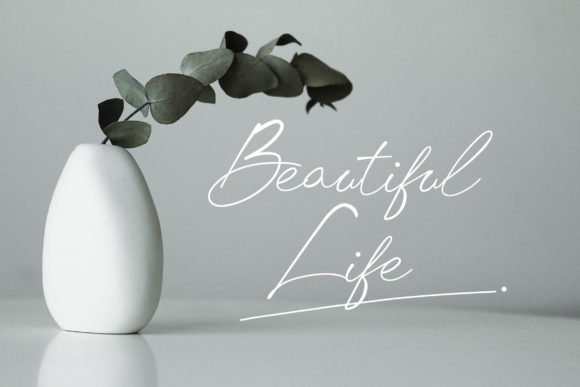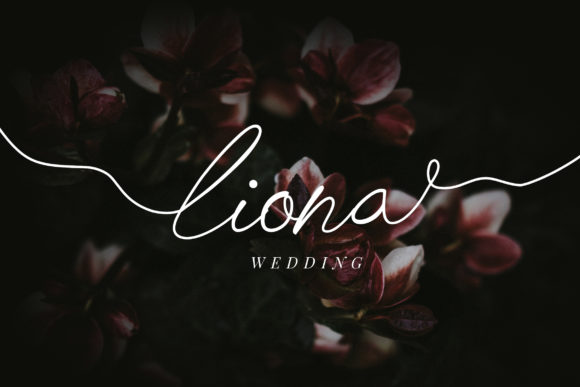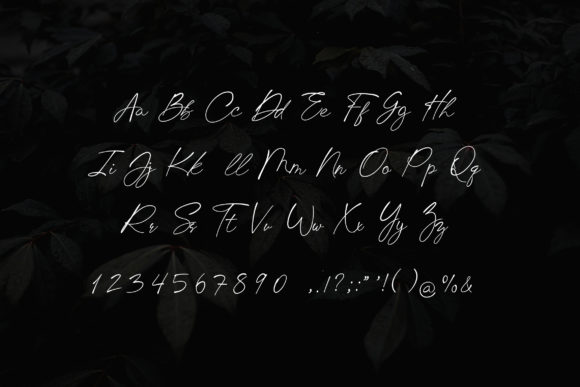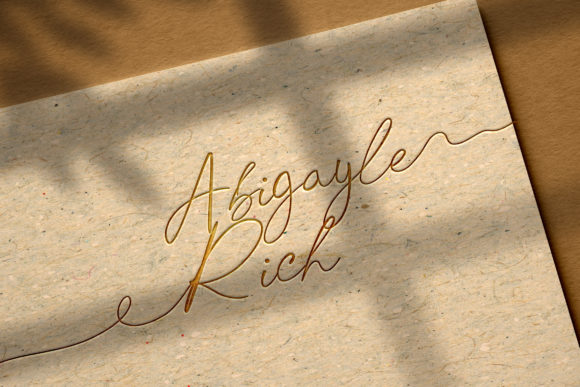
Introduction to Chic Budapest Font
Chic Budapest is a cursive and thin lettered script font.
It is defined by smooth curves and is perfect for fashion branding or editorial designs Add it confidently to your projects, and you will love the results.
Chic Budapest Font offers exceptional quality and versatility, making it a valuable addition to your design toolkit. Whether you’re creating for personal projects or commercial use, Chic Budapest Font delivers professional results.